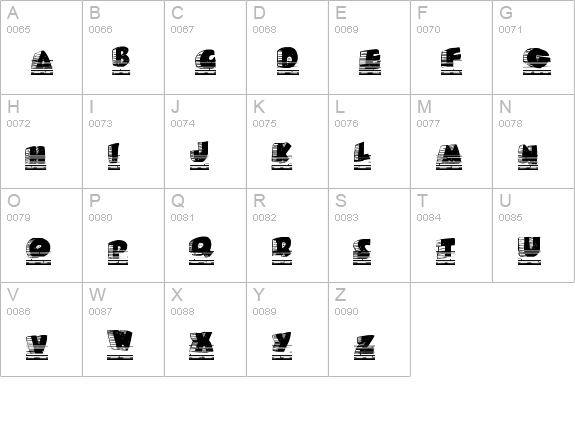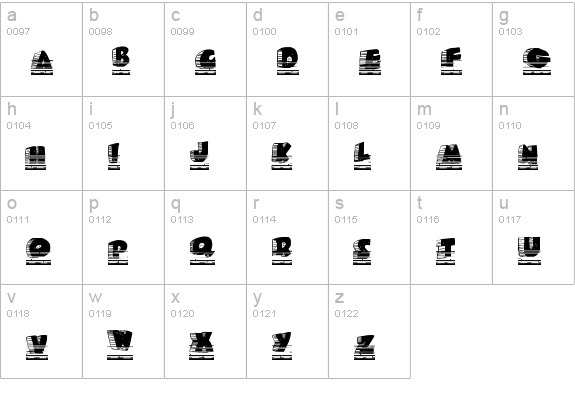
Roady Roadrunner Font Details
Introducing Roady Roadrunner, a playful and energetic font perfect for adding a touch of fun to your projects. This whimsical typeface captures the spirit of speed and adventure, making it ideal for designs that need a dynamic and lively touch. With its bold and dynamic letterforms, Roady Roadrunner exudes a sense of movement and excitement that is sure to grab attention. Best of all, Roady Roadrunner is completely free to download at FontsMarket.com. This means you can easily add this unique font to your collection without any cost. Whether you're working on a poster, flyer, logo, or any other design project, Roady Roadrunner will bring a sense of playfulness and energy to your work. Don't miss out on this fantastic free font – download Roady Roadrunner today and let your creativity run wild!